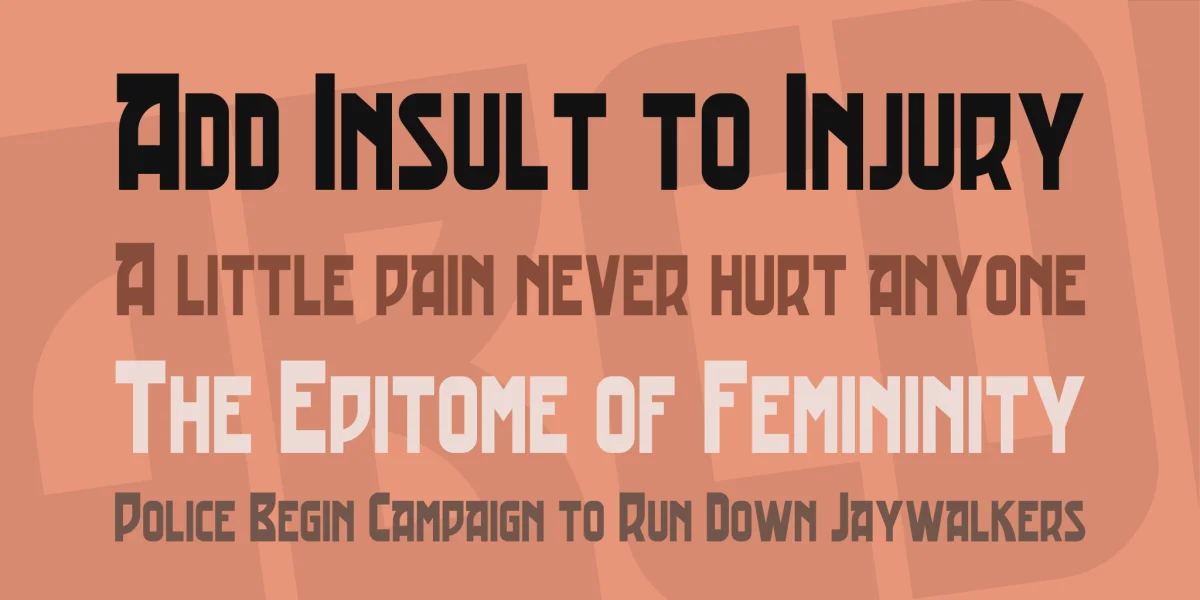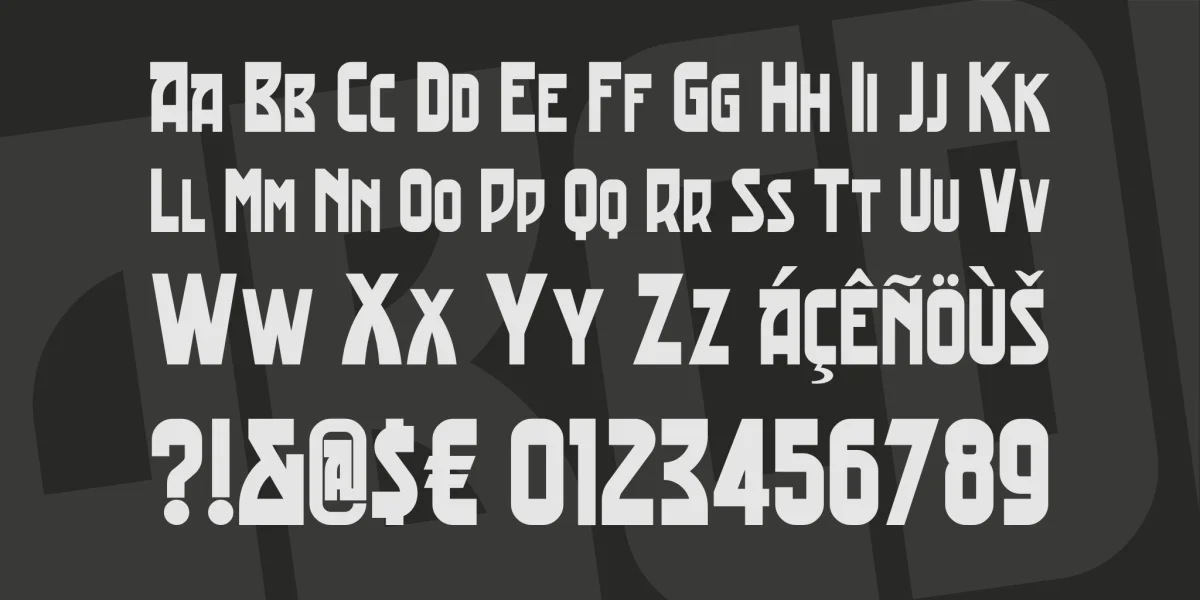
Zig Zag, the font’s in the bag. This turn-of-the-century (nineteenth to twentieth, that is) classic is based on lettering from a Spanish poster for cigarette papers. The name was chosen simply to showcase a few of the font’s more charming lines.